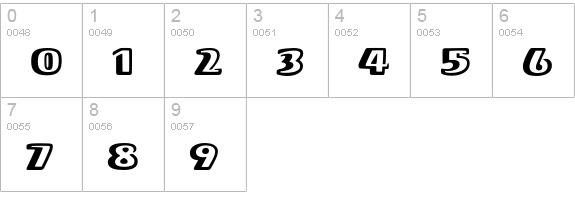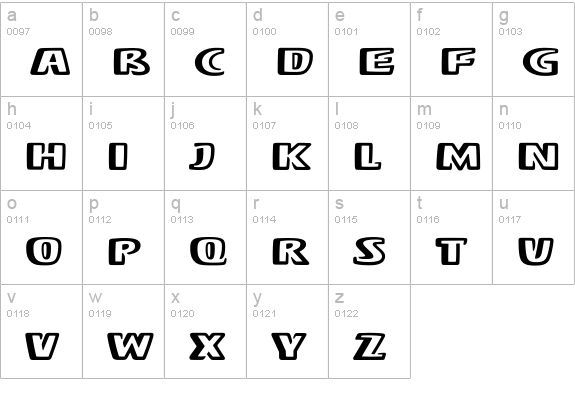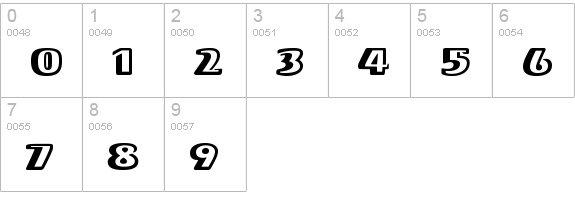
Stereo Font Details
Stereo font is a modern and stylish typeface that exudes a sense of sophistication and elegance. Its unique design features sleek lines and sharp edges, making it perfect for a wide range of creative projects. Whether you're designing a logo, poster, or website, Stereo font will add a touch of class to your work. What's even better is that Stereo font is available for free download at FontsMarket.com. This means you can easily access this stunning font and use it in your projects without any cost. Don't miss out on the opportunity to elevate your designs with the sleek and contemporary style of Stereo font. Download it today and see the difference it can make!